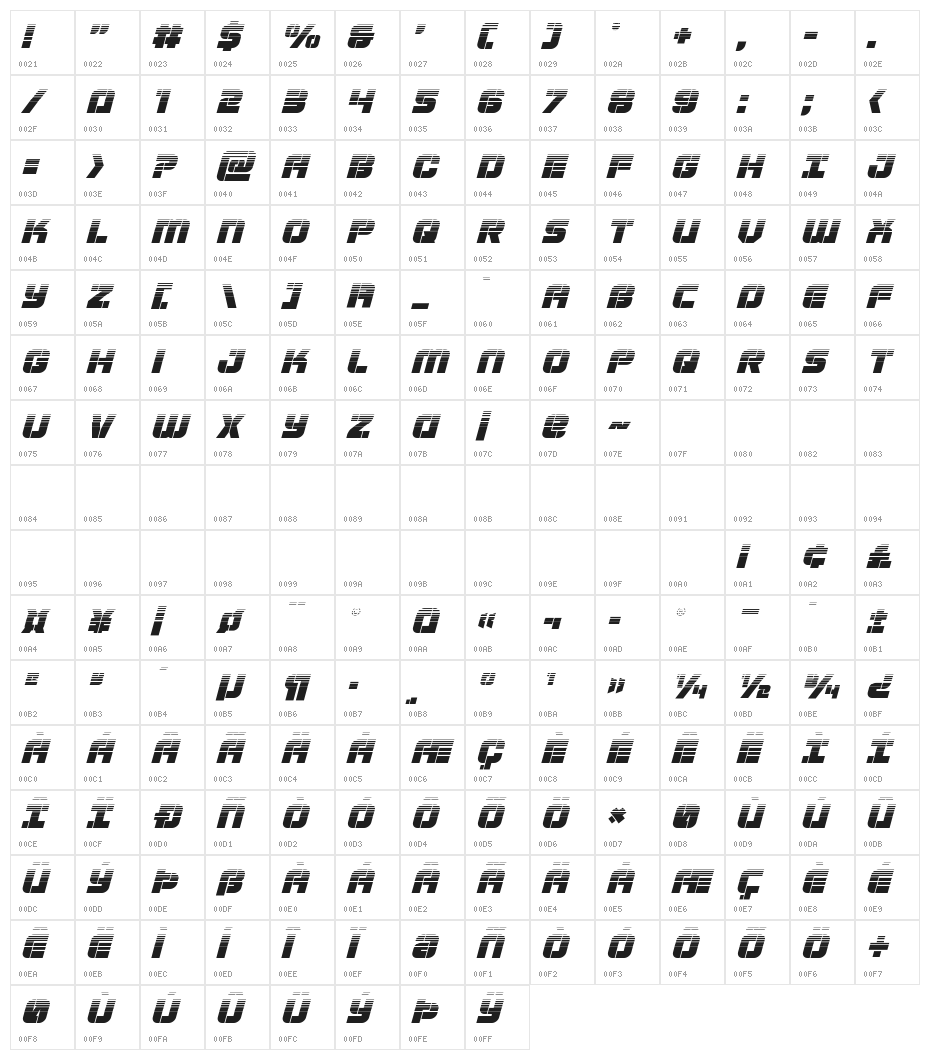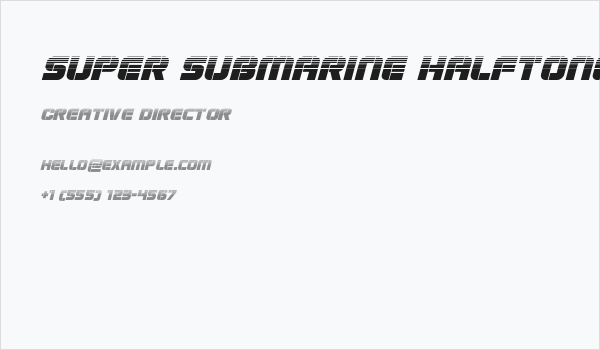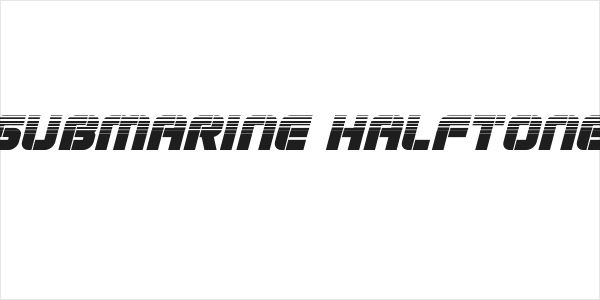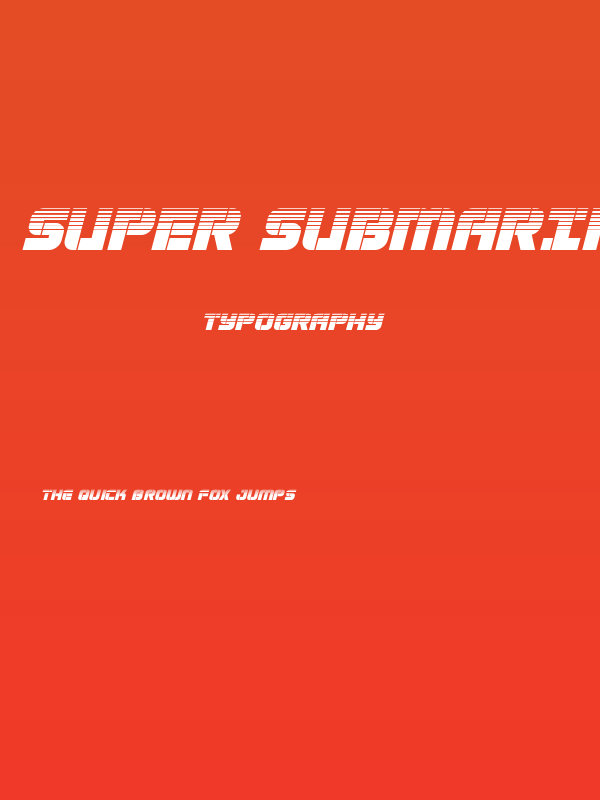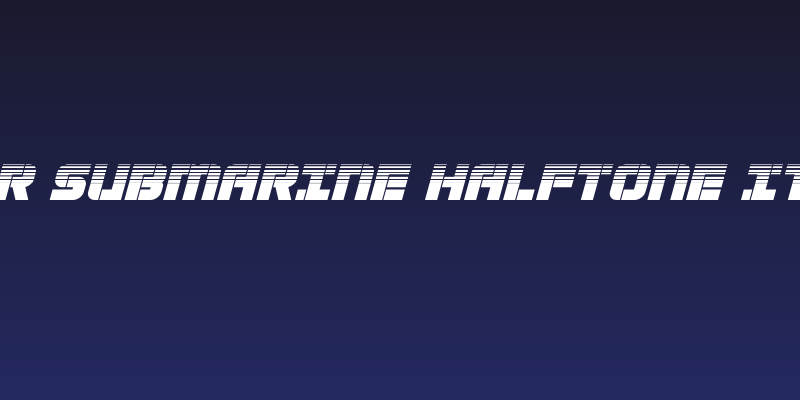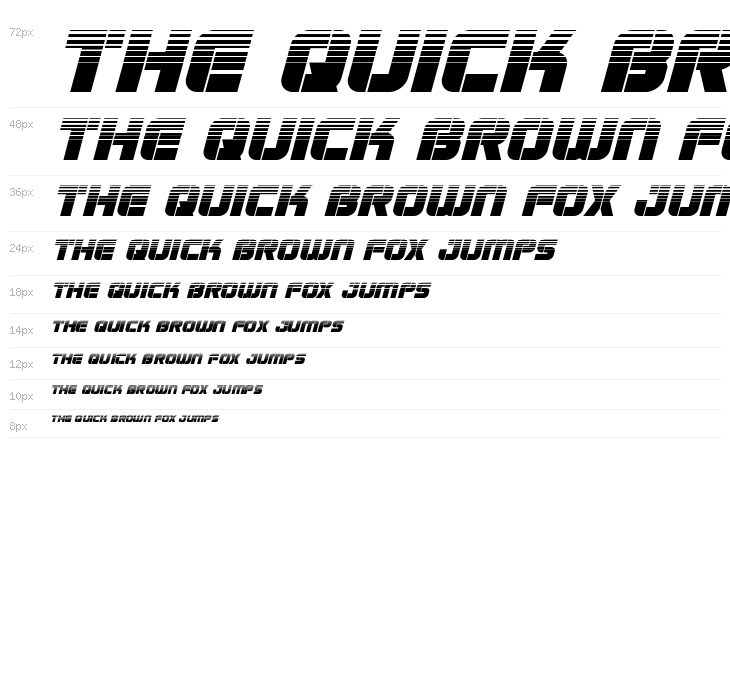
Super Submarine Halftone Italic Font
Super Submarine Halftone Italic Description
This font features a bold and dynamic design with a halftone effect that gives it a unique, futuristic appearance. The characters are italicized, adding a sense of motion and speed. The horizontal lines within each character create a layered, textured look that is both modern and eye-catching. The font maintains a consistent weight throughout, with wide, blocky letters that ensure readability while still offering a distinctive style. Its geometric shapes and sharp angles contribute to its contemporary feel, making it suitable for projects that require a bold statement.
| Proposed Projects | Ideal for use in digital art, video game design, sci-fi themed posters, and branding that requires a modern, edgy look. |